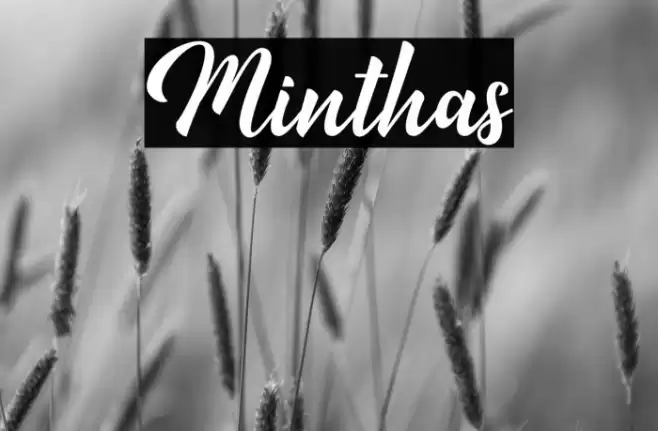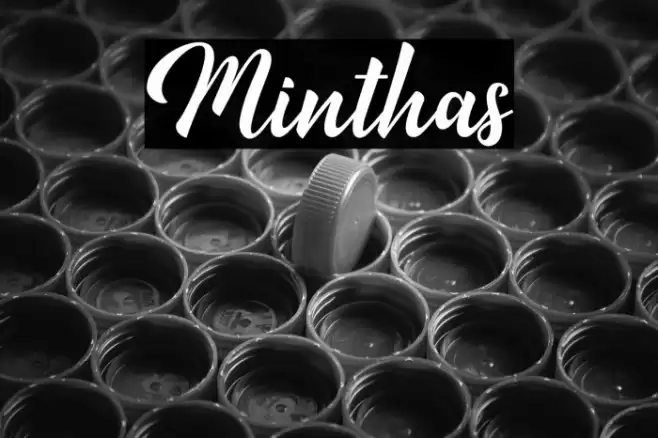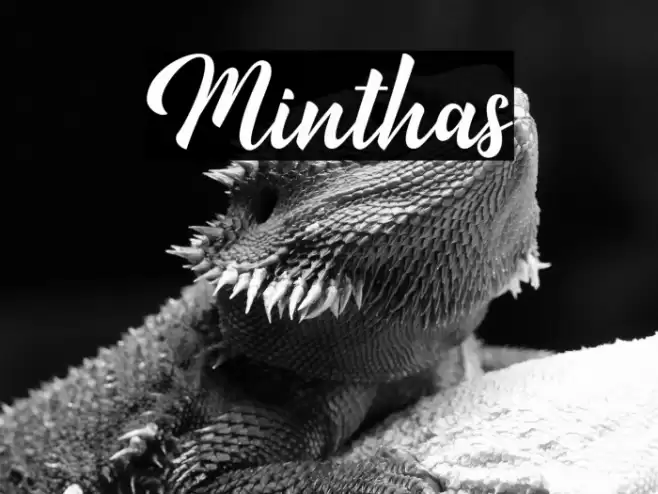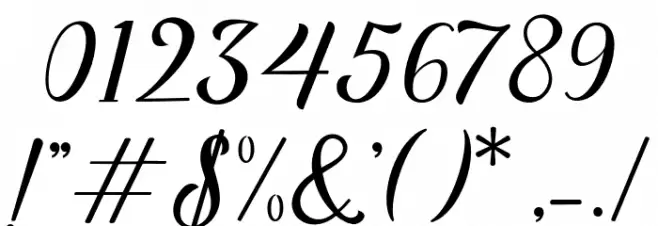
Minthas Font
Minthas Description
This font features an elegant and flowing script style, characterized by its smooth, cursive lines and graceful curves. The uppercase letters are ornate, with sweeping ascenders and descenders that add a touch of sophistication. The lowercase letters maintain a consistent flow, enhancing readability while retaining an artistic flair. Numbers and special characters are designed to complement the overall aesthetic, making them suitable for decorative purposes. The font's style is reminiscent of classic calligraphy, offering a timeless appeal that is both stylish and versatile.
An elegant script font with flowing, cursive lines and classic calligraphic style from Regular fonts.
- Proposed Projects: Ideal for wedding invitations, greeting cards, branding, and elegant packaging designs.
- Overall Style: Classic
- Use Case: Logos, Invitations, Decorative text